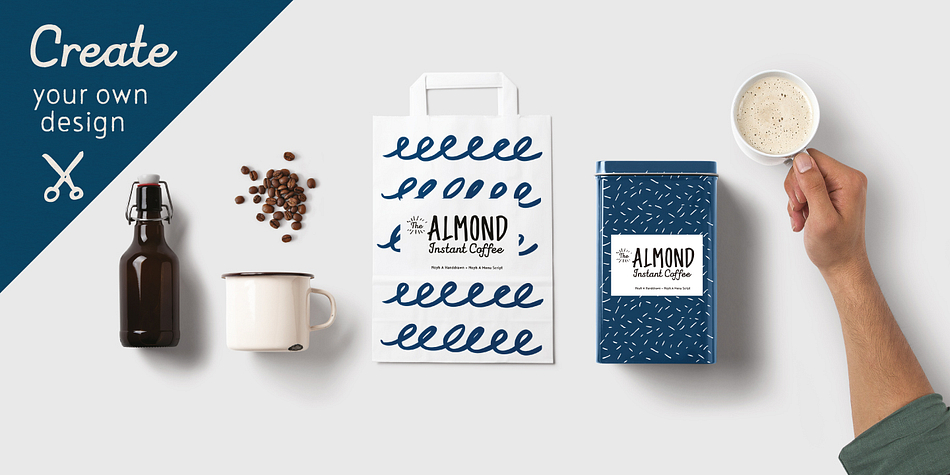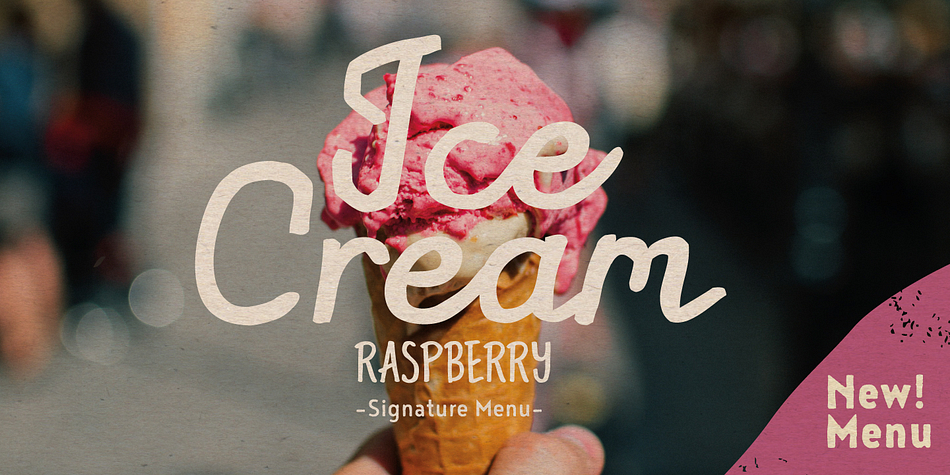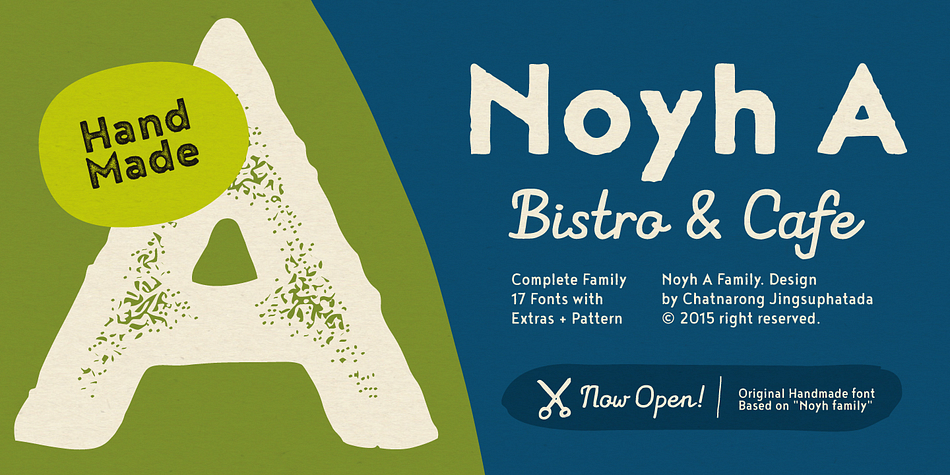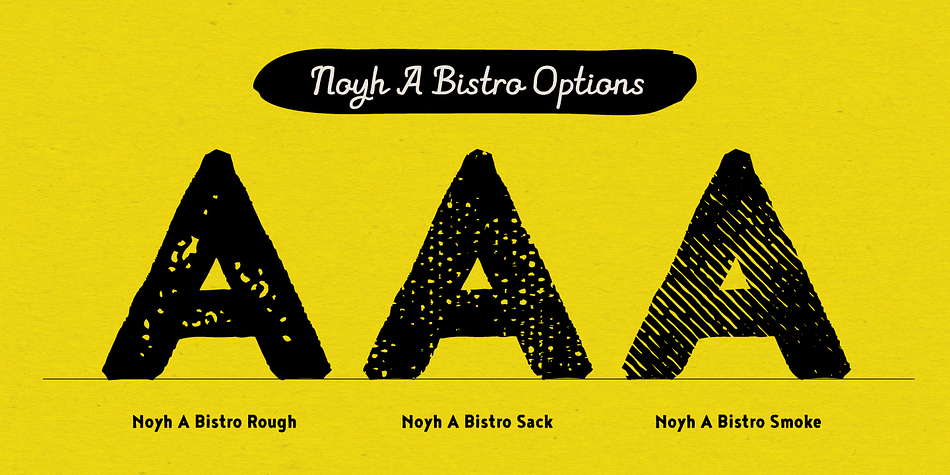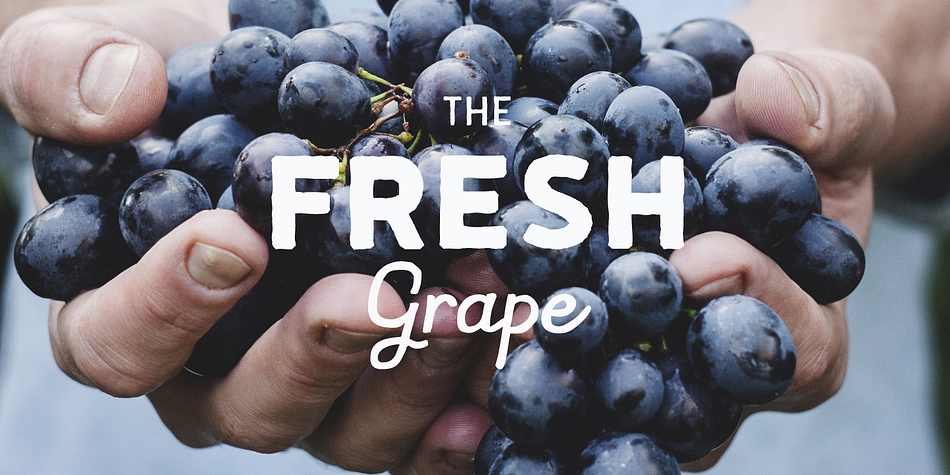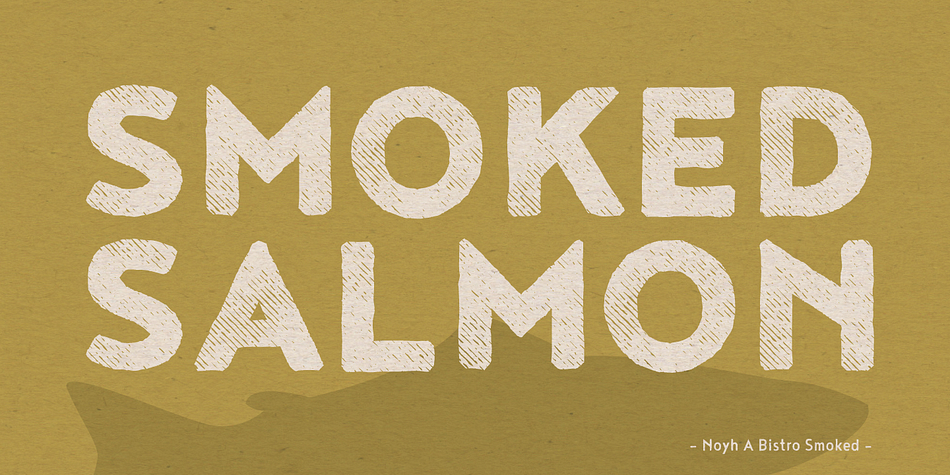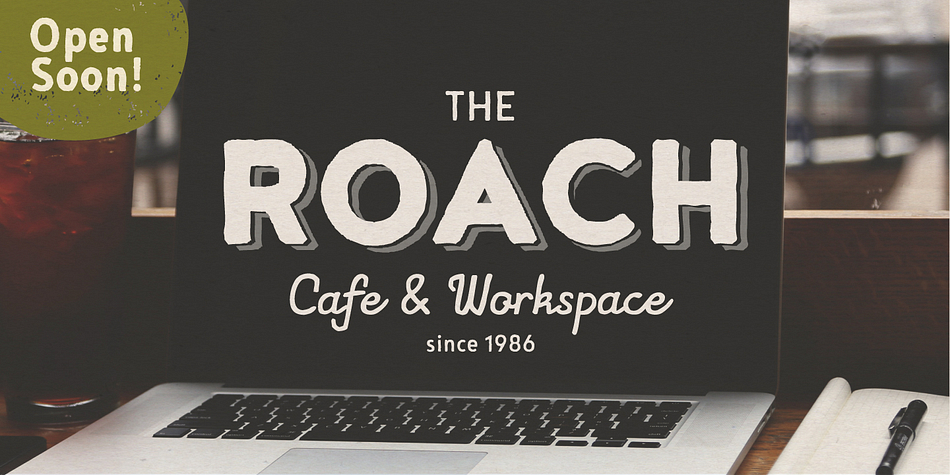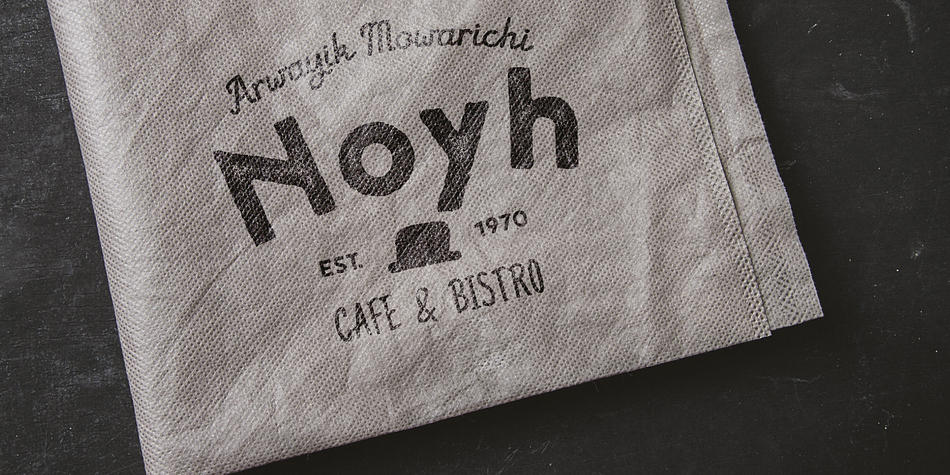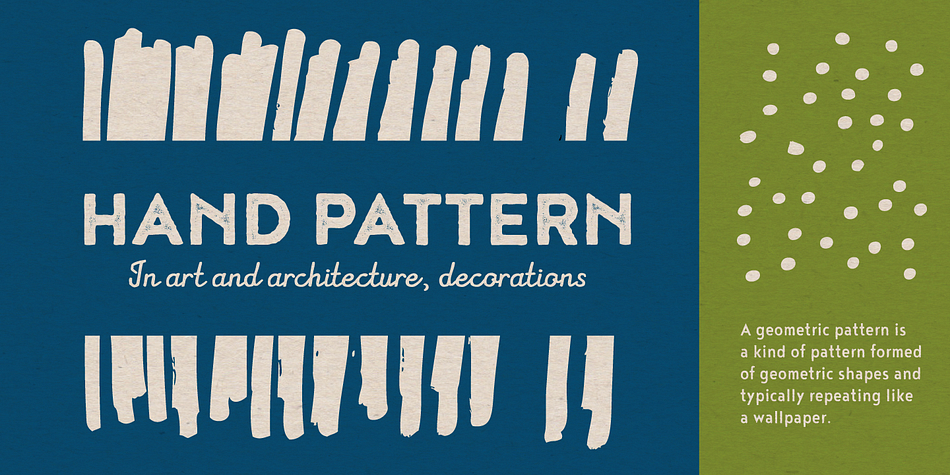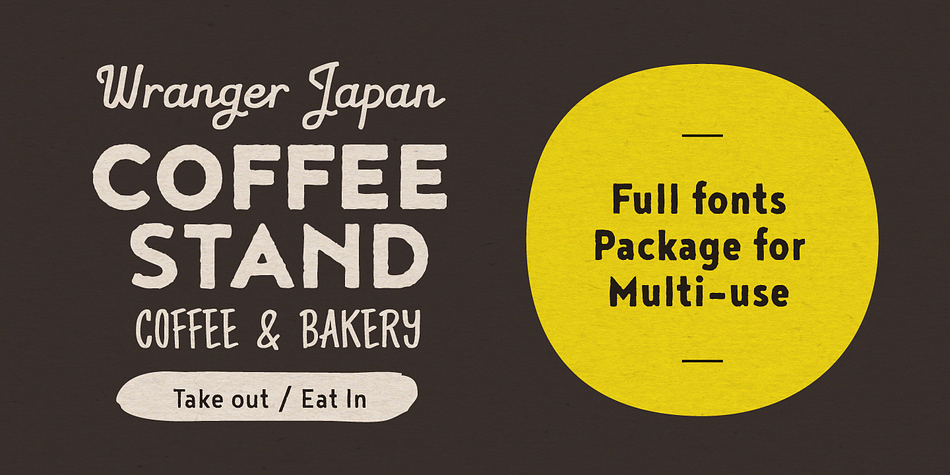
Noyh A is a multiple classification font family. This typeface has seventeen styles and was published by Typesketchbook.
Noyh A is altered from the form of the original Noyh to give the addition of a handmade type. It’s delightful being used alone or in combination with Noyh. You may find it on art publications, in fancy cafes, or even on marriage invitation card.
Features include Bistro which has rough edge and the smoother edge Cafe with options of texture to add variations to the type. It also comes with Manuscript and Handdrawn designs that match to them and support caption texts. Element and Handdrawn patterns are available to complement the 17 letters of Noyh A.